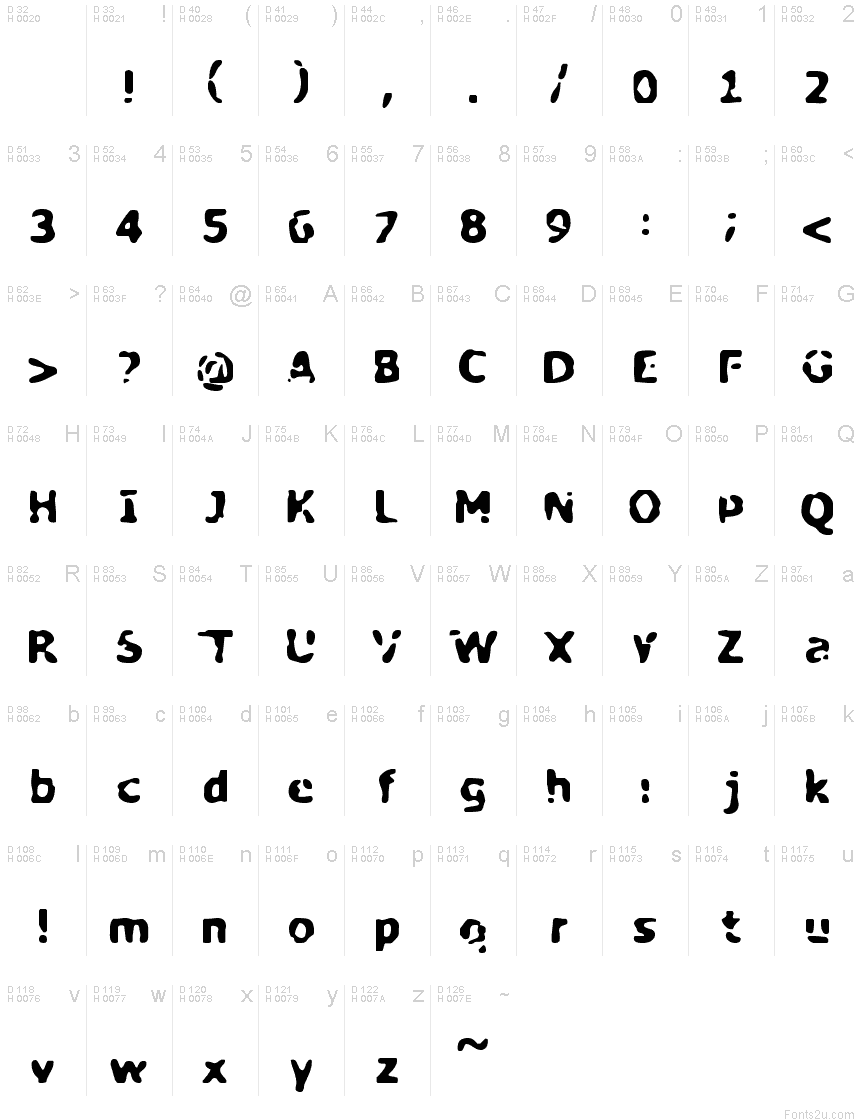
My Biopsy
My Biopsy by MR.FISK INVERSIONS INC. is a free distorted display font defined by swollen black shapes and abrupt bite-like gaps carved into the lettering. The silhouette feels lumpy and unstable from one character to the next, giving the design a blotched, almost cut-and-paste presence rather than a smooth decorative rhythm.
That uneven mass makes sense on horror flyers, underground music posters, zine covers, Halloween titles, and game graphics where the text should feel slightly off balance. Short headlines and logo-style wordmarks get the most from it, especially when you want the rough notches and bulbous forms to read as part of the mood instead of a neutral display style.